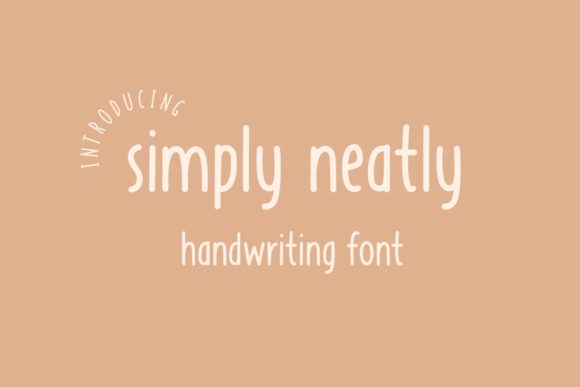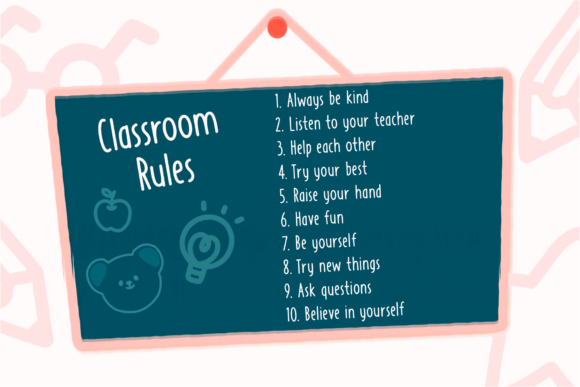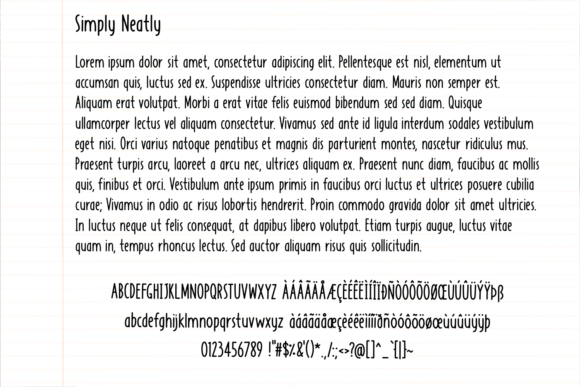
About Simply Neatly Font
Simply Neatly is a natural handwritten font that adds a touch of authenticity and realism to your designs. With its organic and imperfect letterforms, this font is perfect for creating chalkboard quotes, teaching materials, and more.
The natural and handwritten nature of Simply Neatly sets it apart and creates a sense of authenticity in your designs. The font’s imperfect and organic letterforms create a visually appealing composition that adds a personal and realistic touch. It brings a sense of warmth and familiarity, making your designs relatable and engaging.
Simply Neatly’s versatility makes it suitable for a wide range of applications, particularly for creating chalkboard quotes and teaching materials. Whether you’re designing educational resources, inspirational quotes, or any other creative project, this font adapts seamlessly to different contexts. Its natural and handwritten style enhances the overall aesthetic and adds a personal touch to your designs.
By incorporating Simply Neatly into your projects, you infuse them with a sense of authenticity and realism. The font’s natural handwritten style adds a unique and relatable look that makes your designs stand out. Embrace the versatility of Simply Neatly, and notice how it enhances the look and feel of your chalkboard quotes, teaching materials, and other projects, bringing a personal and realistic touch.
In summary, Simply Neatly is a natural handwritten font that adds authenticity and realism to your designs. Its imperfect and organic letterforms create a visually appealing composition. Embrace the versatility of Simply Neatly, and let it enhance the look and feel of your chalkboard quotes, teaching materials, and other projects, adding a personal and realistic touch that resonates with your audience.